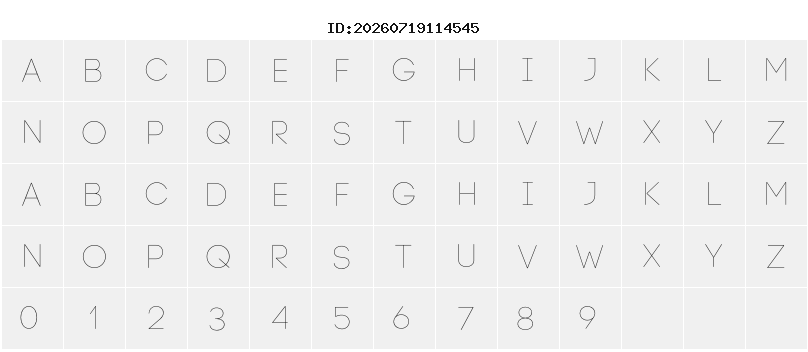
Code Light Preview
• Font Name: Code Light
• Designer: Svetoslav Simov
• Description: Modern and elegant sans serif free font.
About Code Light.otf
Code Light.otf is a modern, elegant sans-serif font designed for ultimate readability and visual harmony. Perfect for branding, headlines, web design, and print materials.